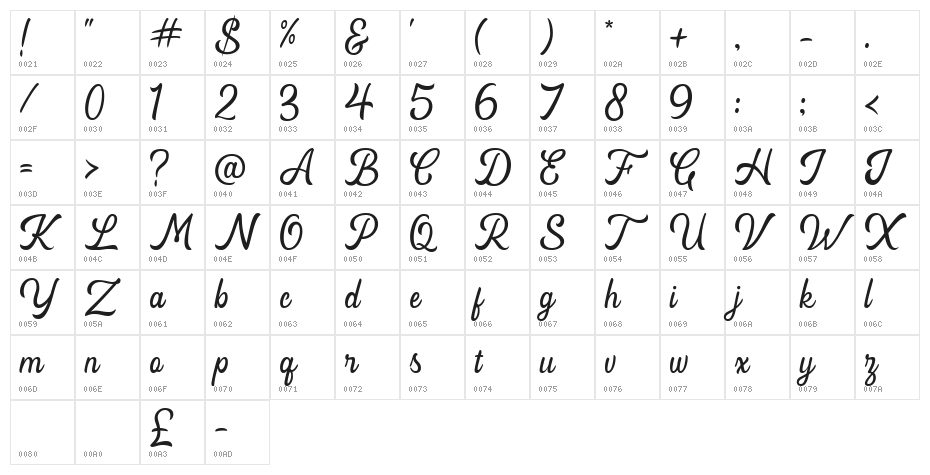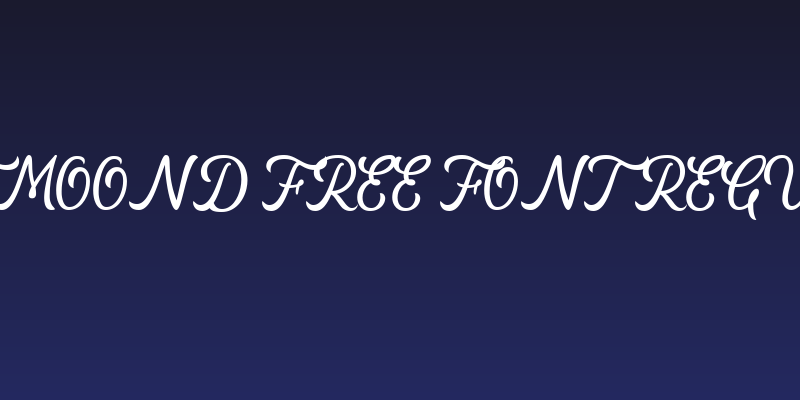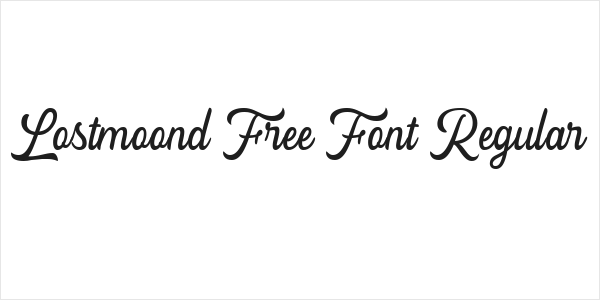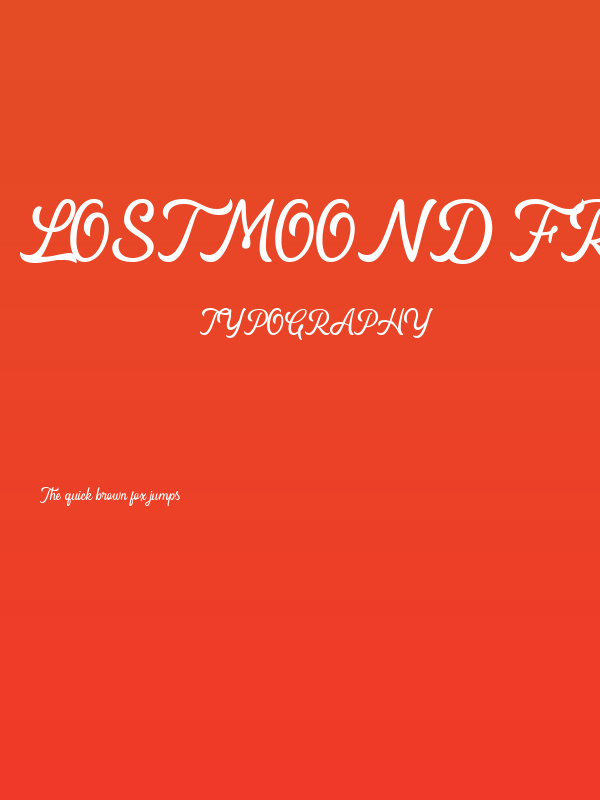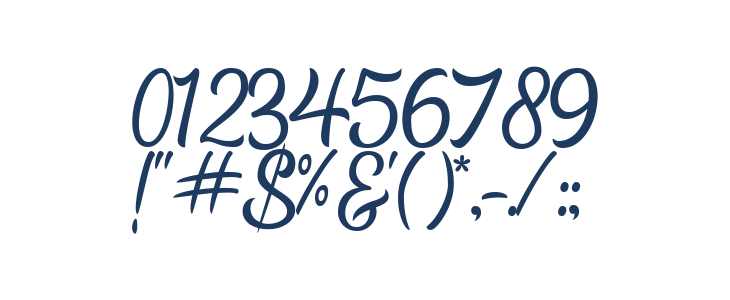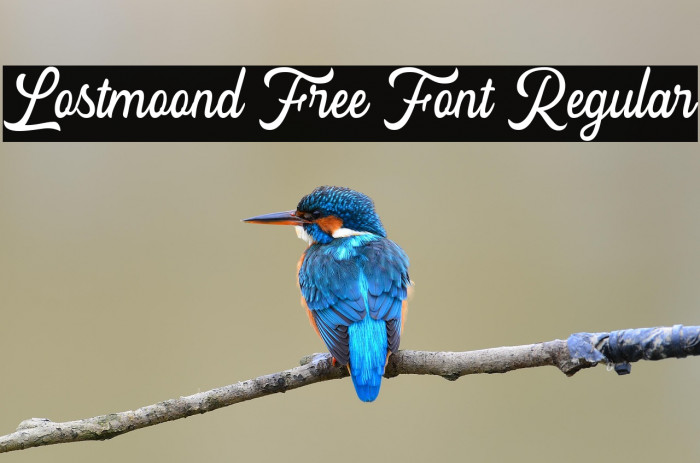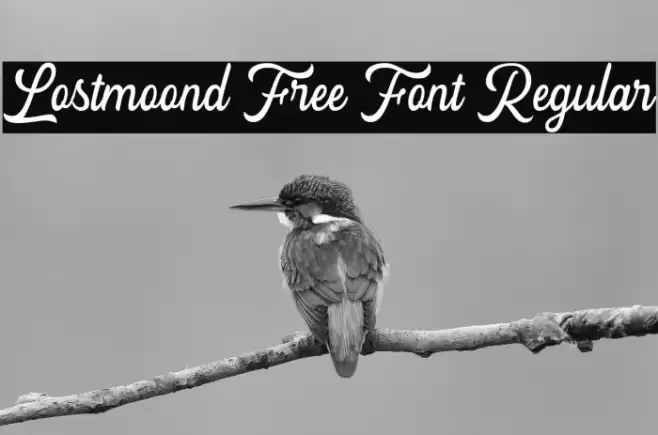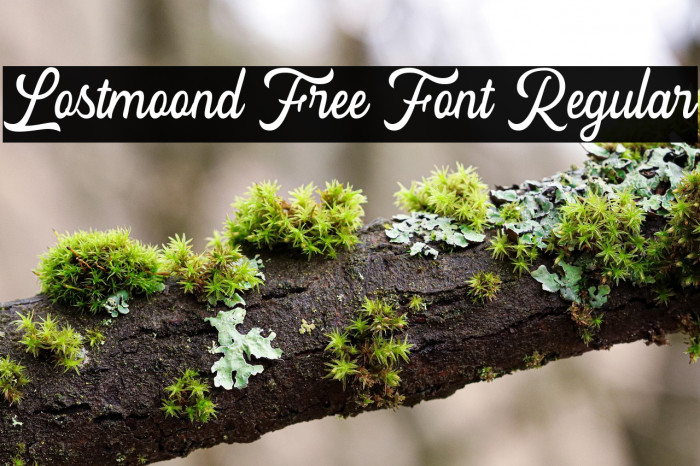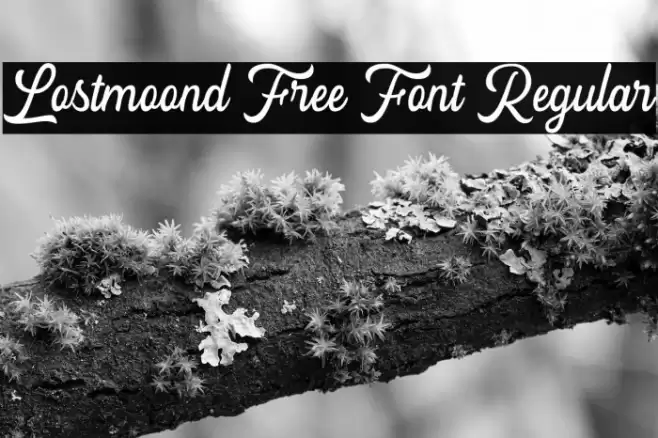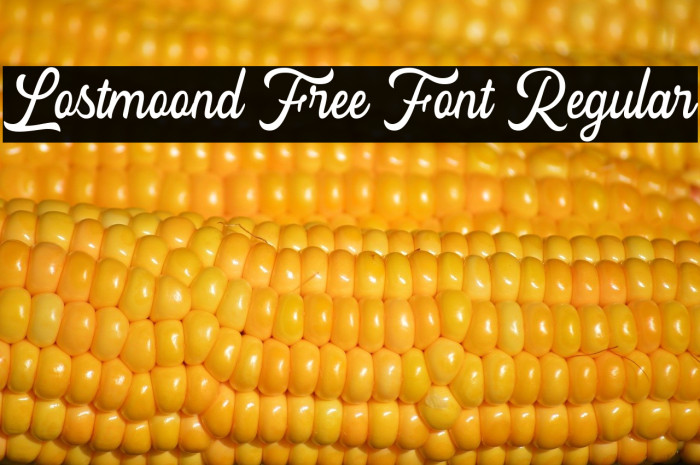
Lostmoond Free Font Regular Font
This font features a flowing, cursive style that exudes elegance and sophistication. The characters are connected in a smooth, continuous manner, creating a sense of fluidity and grace. The uppercase letters are slightly more ornate, with subtle flourishes that enhance their visual appeal. The lowercase letters maintain a consistent rhythm, contributing to the overall harmony of the design. The numerals are distinct yet complementary, ensuring readability while maintaining the font's artistic flair. Special characters are thoughtfully integrated, adding versatility to the font's application. This font's unique style makes it ideal for projects that require a touch of elegance and creativity.
| Proposed Projects | Ideal for wedding invitations, greeting cards, branding, and elegant packaging designs. |